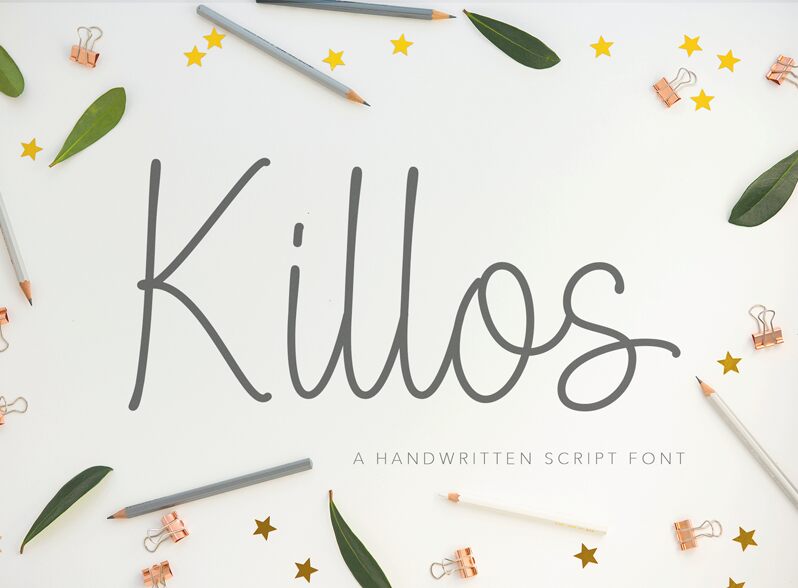
Killos, designed by Sawarna Studio, is an exquisite handwritten font that exudes elegance and finesse. With its extra-light weight and semi-condensed width, Killos lends a delicate touch to any project it graces.
Its flowing curves and unique letterforms make it perfect for wedding invitations, romantic poetry collections, or high-end fashion editorials. Let Killos elevate your brand identity with its sophisticated charm or add a touch of refinement to your personal stationery.
This font is versatile enough to bring a sense of grace and beauty to any creative endeavor.